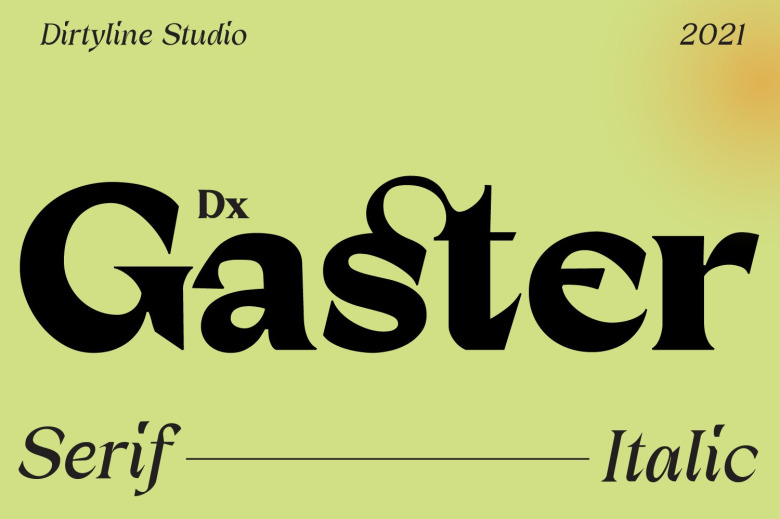
Dx Gaster Font
Dx Gaster is stylish, modern and luxurious serif font manufactured by Hendra Dirtyline. It will elevate each of your creations. So beautiful on invitation like greeting cards, branding materials, business cards, quotes, posters, and more!
It’s the part of a strong and modern display family. This typeface both impressive at display sizes and easily readable in text size, while the sharp shapes of the triangular serifs and the distinctive letter shapes show their strength in logo design and impressive editorial use.
Dx Gaster come with elegant style, strength and contrasts, with features an extended latin character set of 404 glyphs covering over 86 languages. Dx Gaster is ready to be like a top model on the design catwalk, making your projects looking classic but contemporary, finely tuned but assertive, and elegant as the best luxury fashion.